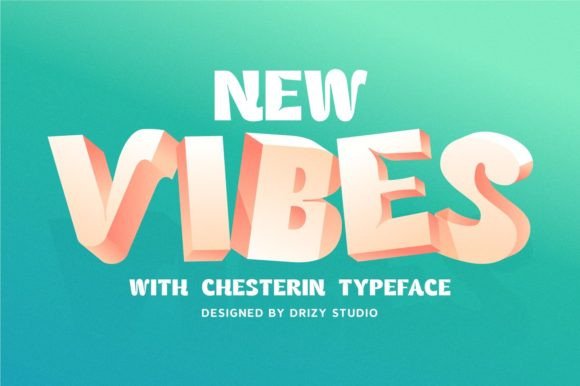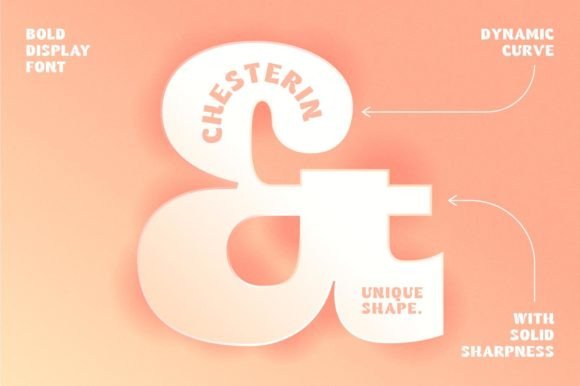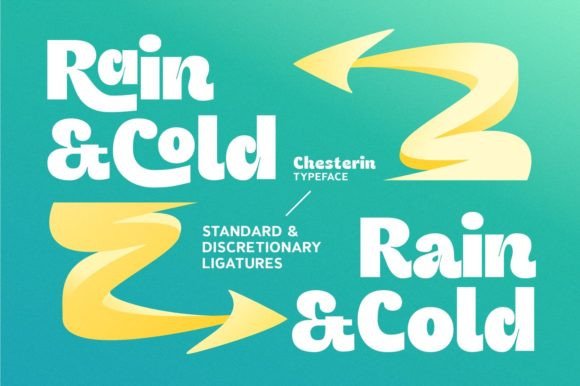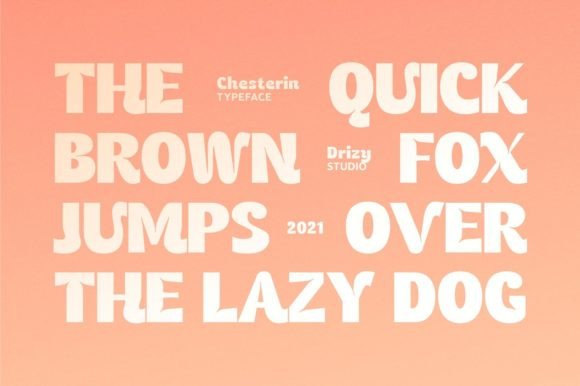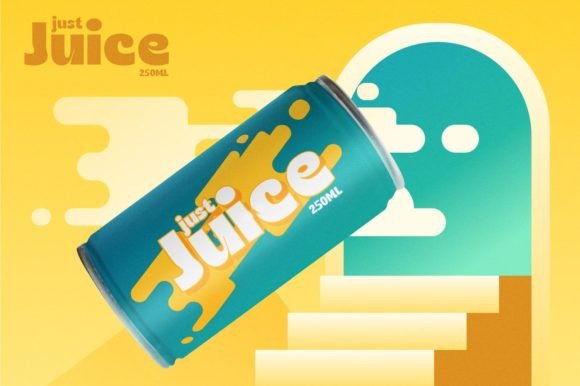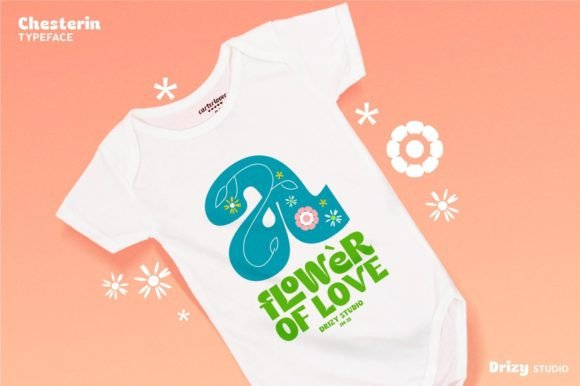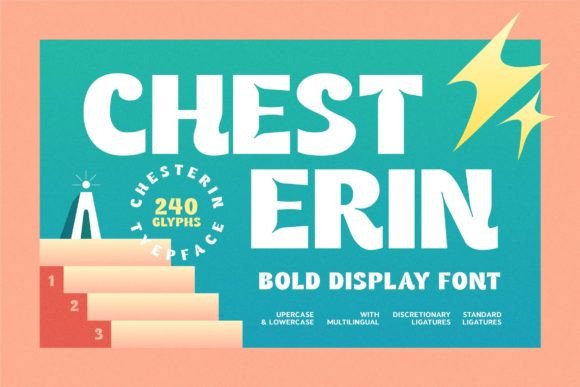
Introducing Chesterin Font: The Ultimate Display Font for Bold Designs
Are you tired of using the same old fonts in your designs? Look no further than Chesterin Font, a cool and bold display font that’s sure to elevate your creations. With its fun retro vibe, Chesterin Font is an incredible asset to any font library, and we’re excited to dive into its features and benefits.
What is Chesterin Font?
Chesterin Font is a display font designed to make a statement. Its bold and chunky letters are perfect for headlines, titles, and any other text that needs to grab attention. The font’s retro vibe is reminiscent of the 1950s and 60s, with a playful and nostalgic feel that’s sure to bring a smile to your face.
Key Features of Chesterin Font
- Bold and Chunky Letters: Chesterin Font features bold and chunky letters that are perfect for making a statement.
- Fun Retro Vibe: The font’s retro vibe is fun and playful, adding a touch of nostalgia to your designs.
- High-Quality Design: Chesterin Font is designed with high-quality craftsmanship, ensuring that your designs look professional and polished.
- Easy to Read: Despite its bold and chunky design, Chesterin Font is easy to read, making it perfect for use in a variety of contexts.
Benefits of Using Chesterin Font
- Adds Visual Interest: Chesterin Font adds visual interest to your designs, making them more engaging and attention-grabbing.
- Perfect for Headlines and Titles: The font’s bold and chunky design makes it perfect for use in headlines and titles.
- Versatile: Chesterin Font is versatile and can be used in a variety of contexts, from posters and flyers to social media graphics and website headers.
- Unique and Creative: Chesterin Font is a unique and creative font that’s sure to set your designs apart from the crowd.
- Use it as a Headline Font: Chesterin Font is perfect for use in headlines and titles.
- Use it in Social Media Graphics: Chesterin Font is perfect for use in social media graphics, such as Facebook posts and Instagram stories.
In conclusion, Chesterin Font is a cool and bold display font that’s sure to elevate your designs. With its fun retro vibe and bold and chunky letters, it’s perfect for making a statement. Whether you’re a designer, crafter, or small business owner, Chesterin Font is an incredible asset to your font library. So why not give it a try and see the difference it can make in your designs?